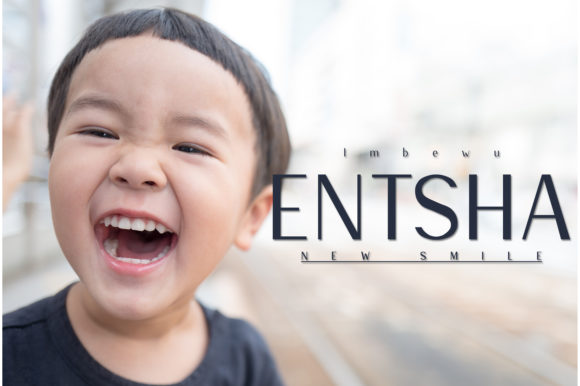
Introducing Entsha, an exquisite sans serif font that captures the essence of boldness and elegance. Experience the timeless allure of this font that radiates artistry and precision in every stroke. With its crisp lines and confident curves, Entsha leaves an enduring impression on your designs, demanding attention and admiration.
Dive into the world of visual intrigue as Entsha takes your designs to new heights. Make a statement in logo designs, where Entsha's strong presence commands attention and sets your brand apart. Craft stunning posters that entice and captivate, leaving spectators in awe of your design prowess. Harness the power of Entsha in website design, creating an immersive user experience that showcases your brand's boldness and refinement. Unleash your creativity in social media campaigns, where Entsha's timeless charm adds an extra layer of sophistication to your visual narrative. Explore the possibilities with brochure designs, where Entsha's clarity and grace bring clarity to your message.
Entsha is not just a font; it's a gateway to expressing your individuality and making a lasting impact. Imagine your designs radiating with a sense of purpose, attracting the right audience and leaving a lasting impression. Entsha empowers you to communicate with confidence, captivate your audience, and create a visual legacy that speaks volumes. Embrace the beauty of Entsha font today and elevate your creative journey to extraordinary heights.